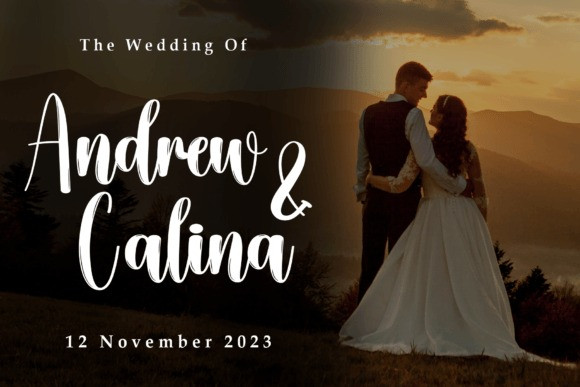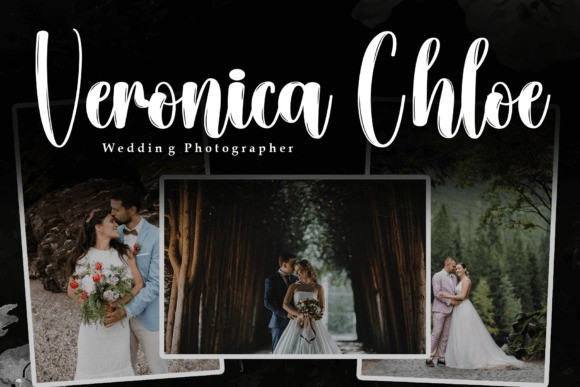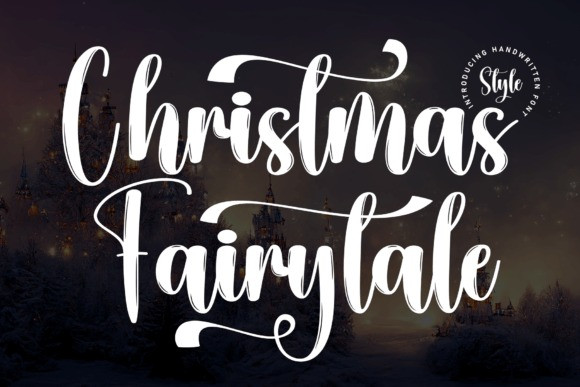
Christmas Fairytale Font
Christmas Fairytale Font is a charming brush handwritten font that captures the enchanting spirit of the holiday season. With its whimsical strokes and festive flair, this font adds a touch of magic to your designs. Perfect for holiday cards, festive invitations, or any project that needs a dash of Christmas spirit, Christmas Fairytale brings a handwritten warmth that makes every word feel like a holiday wish come true.